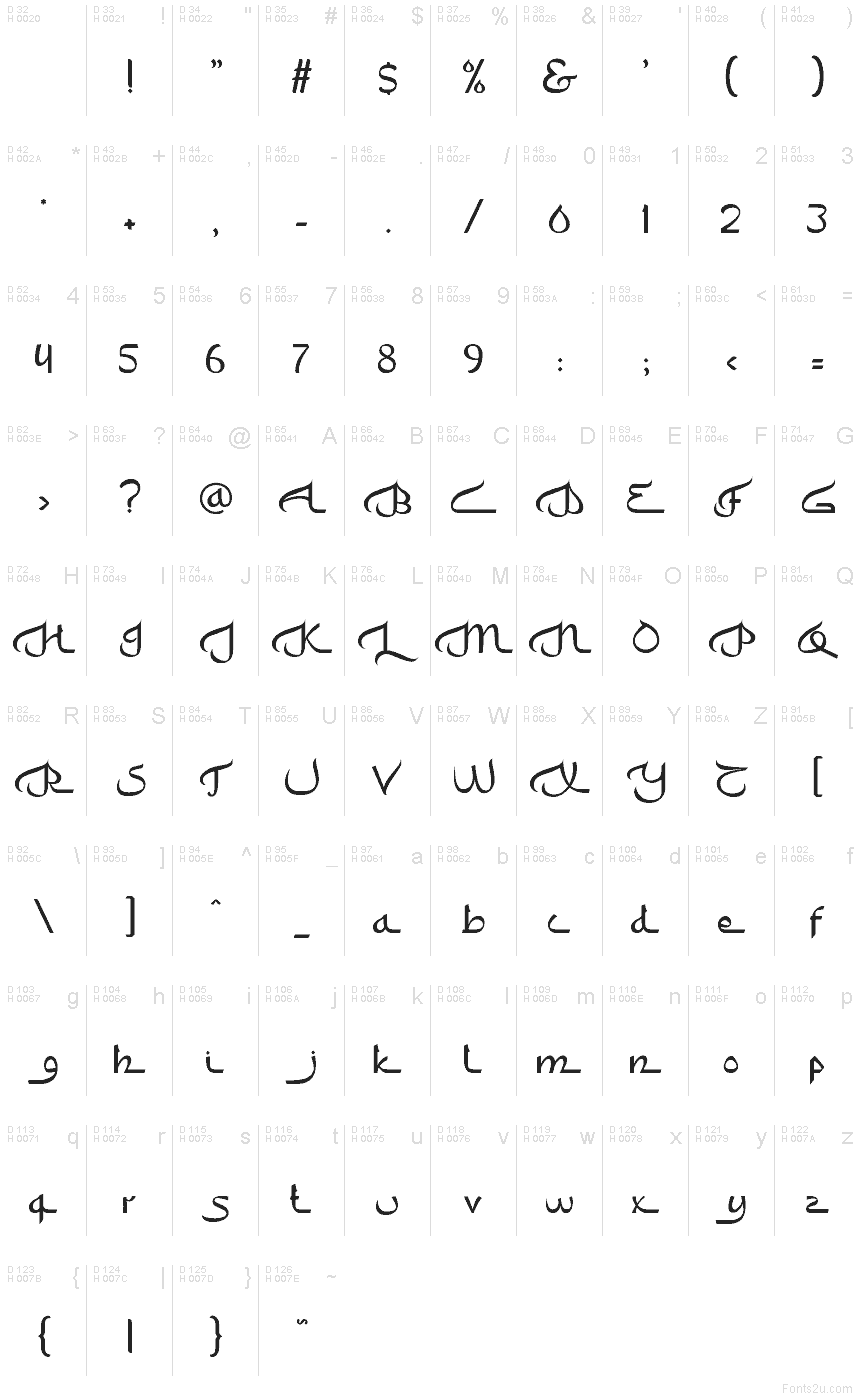
Furqan
Furqan font by PutraCetol Studio is a free Arabic-inspired display font. Built around sweeping, inky strokes that taper into needle-sharp terminals, it blends the drama of calligraphy with crisp, readable Latin forms. The rhythm feels ceremonial yet nimble—curved entries, angular joins, and a slightly compressed stance give headlines a poised, ceremonial snap.
Using Furqan, your titles carry a distinct Middle Eastern flair without sacrificing clarity. It shines on halal restaurant logos, Ramadan and Eid posters, cultural festival banners, boutique packaging, travel editorials, and YouTube thumbnails. Set this free font large with modest tracking, and pair it with a clean geometric sans to let the sculpted strokes breathe.